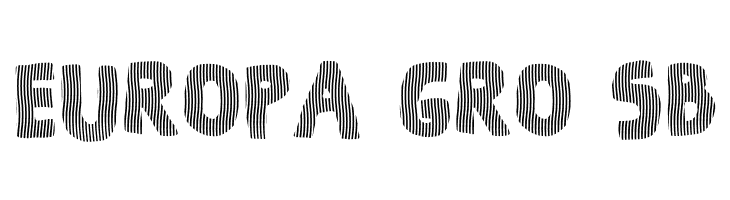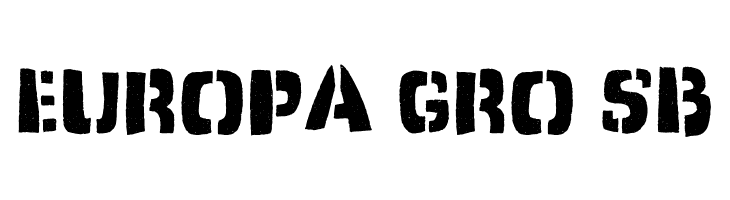
A playful, hand-drawn font with a rough, textured appearance and whimsical style.
A bold, decorative font with a distressed, vintage texture.
A bold, playful font with rounded, exaggerated shapes and a whimsical style.
A bold, playful font with rounded strokes and a vintage-modern blend.
A playful, bold font with jagged edges and a hand-drawn aesthetic.
A tall, narrow font with a hand-drawn, artistic style.
A whimsical, handwritten font with decorative curls and swirls.
A bold, hand-drawn font with a playful and artistic style.
A bold, futuristic font with angular shapes and high contrast.
A bold, futuristic font with slanted, geometric characters.
A bold, futuristic font with geometric shapes and sharp angles.
A bold, geometric font with a futuristic and edgy style.
A bold, futuristic font with geometric shapes and unique character elements.
A bold, futuristic font with sharp angles and a geometric design.
A playful, hand-drawn font with bold, irregular strokes and exaggerated serifs.
A playful, informal handwritten font with irregular strokes and a casual appearance.
A playful, casual handwritten font with an informal, friendly style.
A geometric, futuristic font with blocky, angular letterforms.
A bold, geometric font with a futuristic, digital aesthetic.
A bold, geometric font with a digital, futuristic style.
A bold, geometric font with a futuristic, digital aesthetic.
A bold, playful font with rounded, outlined characters.
A dynamic, hand-drawn font with a rough, energetic style.
A bold, edgy font with a hand-drawn, graffiti-like appearance.
A futuristic, geometric font with sharp angles and a bold, tech-inspired design.
A playful, hand-drawn font with a whimsical and informal style.
A playful, bold font with a shadow effect for a three-dimensional look.